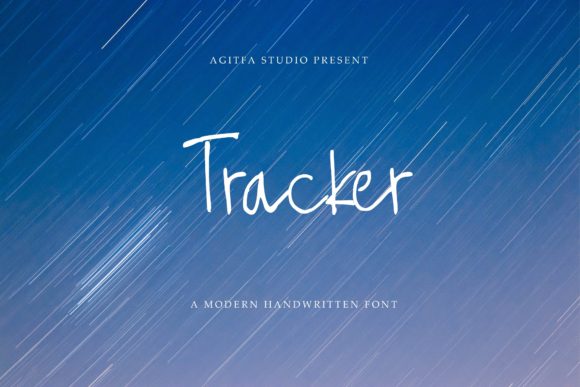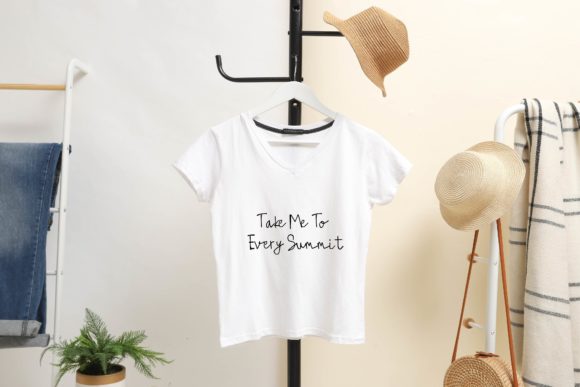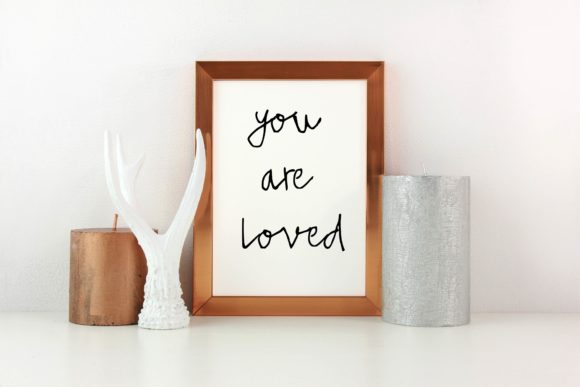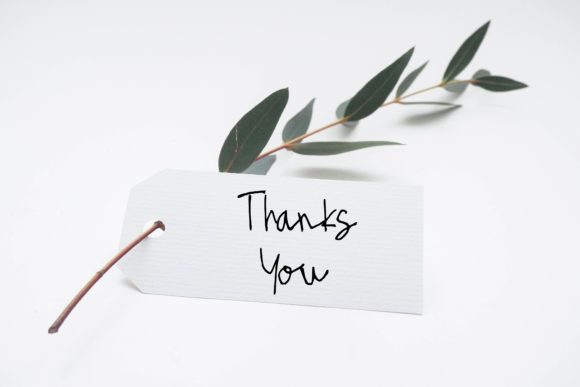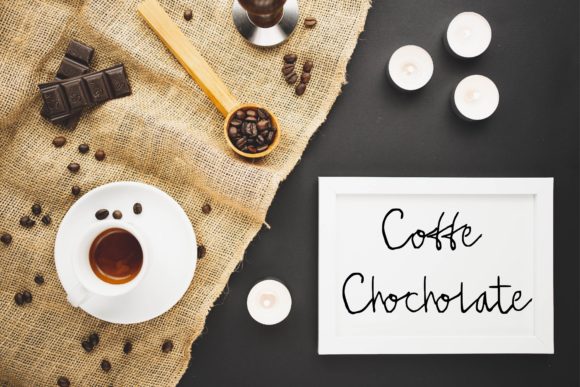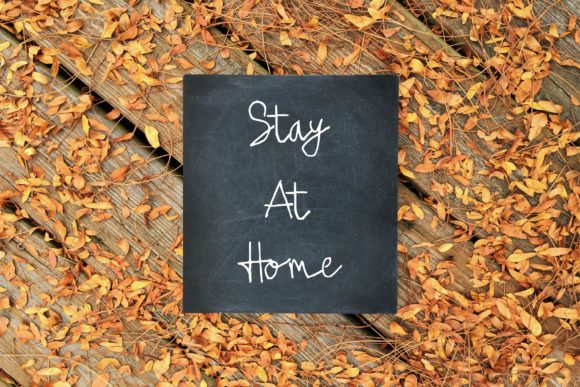
Tracker Font
About Tracker Font
Tracker is a cute and simple lettered handwritten font that adds a touch of charm to your designs. This font is particularly well-suited for chalkboard quotes and teaching materials, as it exudes a playful and authentic look. Whether you’re creating educational resources, classroom materials, or any other project related to teaching, Tracker brings a sense of whimsy and creativity. Its hand-drawn style and natural imperfections give it a genuine and personal feel, making your designs feel more relatable and approachable. Embrace this font confidently and let it add a realistic and personal touch to your creations. Watch as Tracker brings your chalkboard quotes and teaching materials to life, adding a fun and engaging element to your designs.